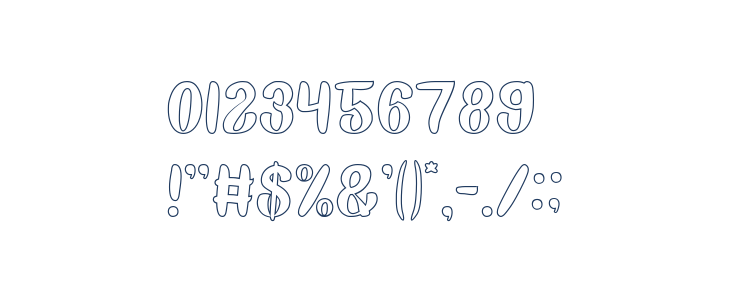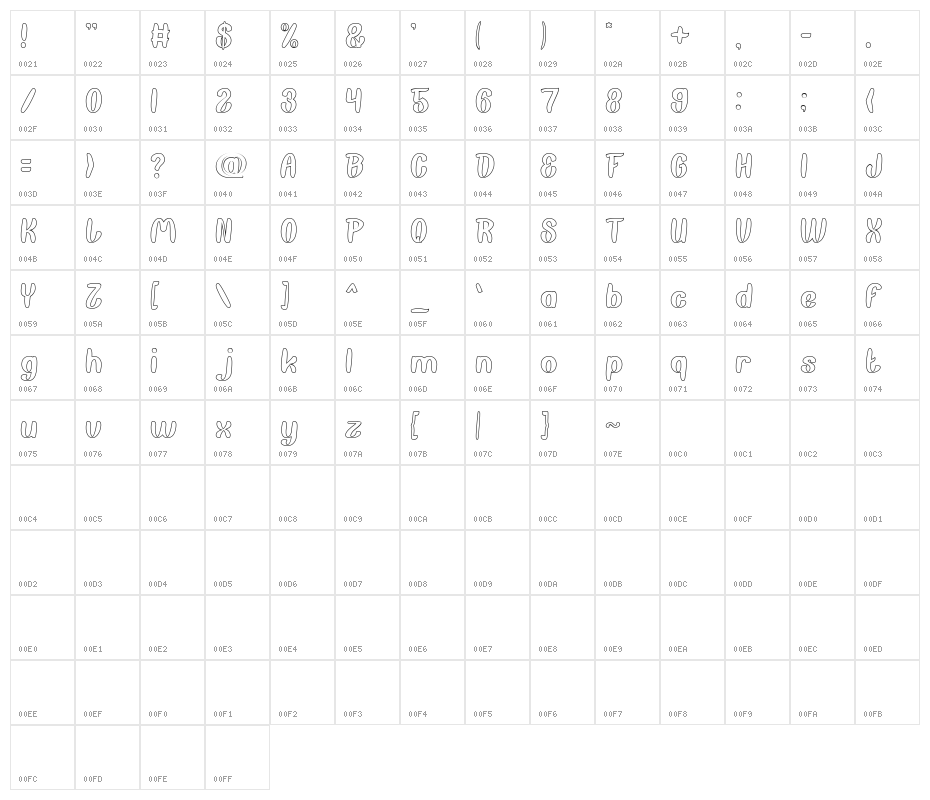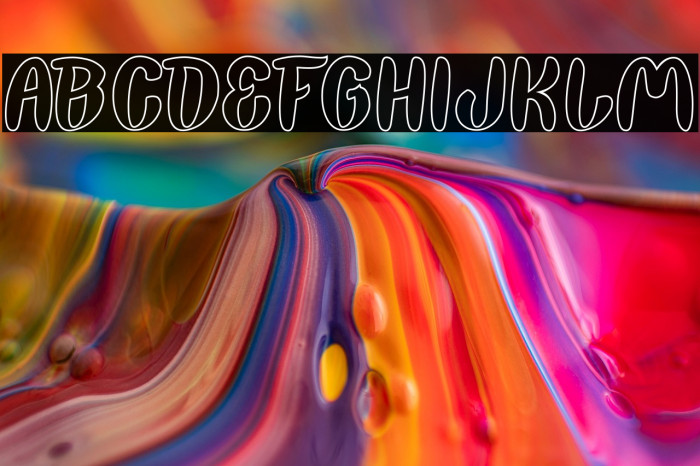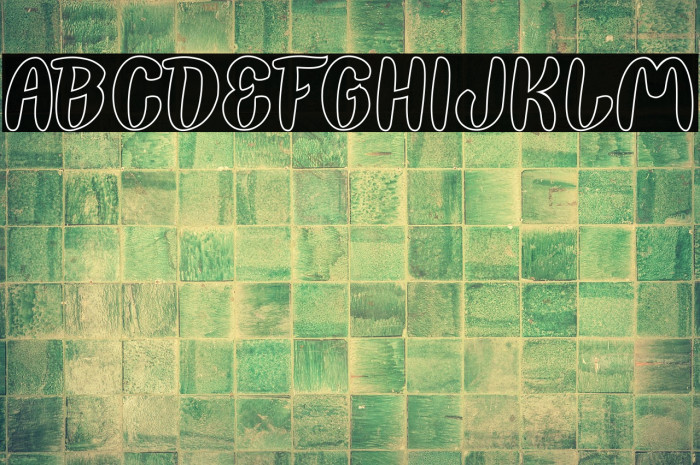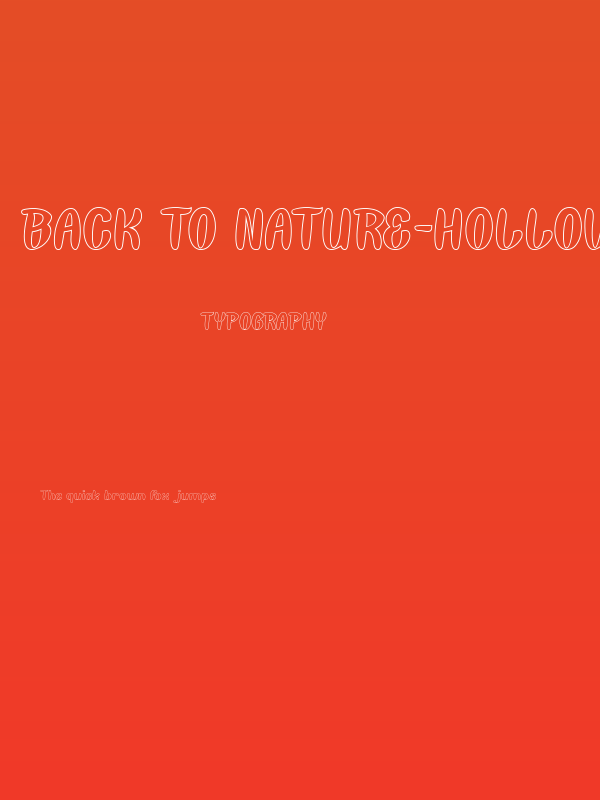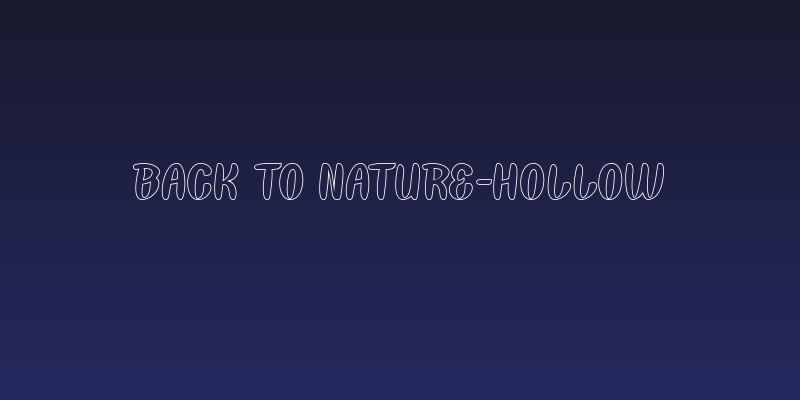
Back To Nature-Hollow Font
Back To Nature-Hollow Description
This playful and whimsical font features hollow, rounded characters with a hand-drawn appearance. The letters have a consistent thickness, creating a uniform look across both uppercase and lowercase alphabets. The numbers and special characters maintain the same style, adding to the cohesive design. Its unique hollow design gives it a light and airy feel, making it ideal for projects that require a fun and approachable aesthetic. The font's organic curves and smooth lines evoke a sense of creativity and friendliness, making it suitable for a variety of informal and artistic applications.
| Proposed Projects | Ideal for children's books, greeting cards, playful branding, and creative posters. |